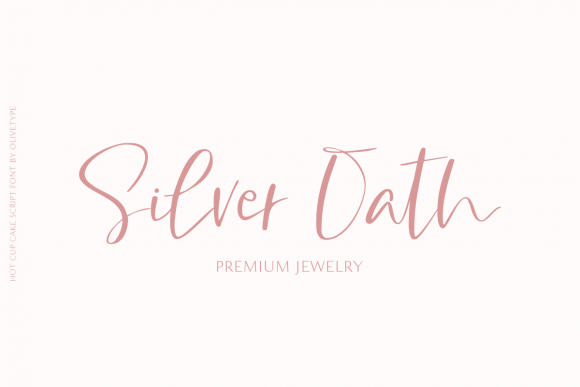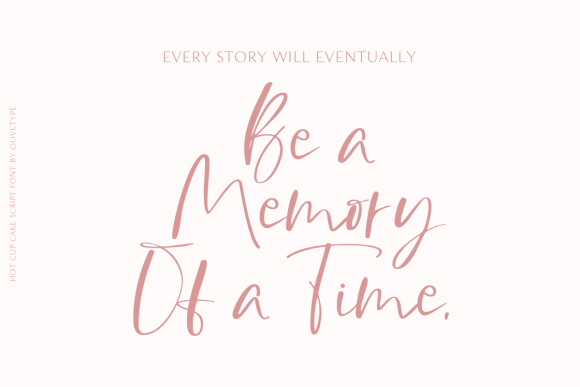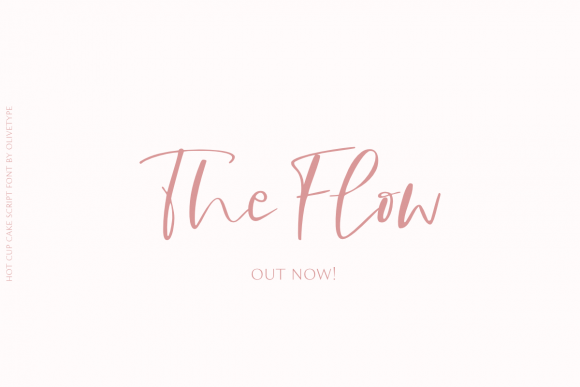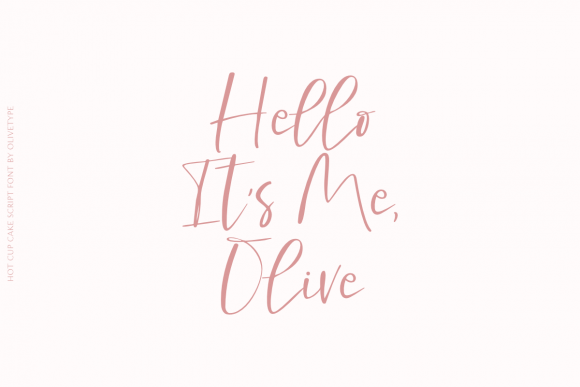
Introduction to Hot Cup Cake Font
Have you ever been working on a creative project, pouring your heart and soul into every detail, only to realize that the right font can make all the difference? That’s exactly what happened to me when I stumbled upon the beautiful Hot Cup Cake Font. As a designer, I’ve been searching for the perfect script font to add a touch of elegance to my designs, and I finally found it.
Hot Cup Cake Font is more than just a pretty face – it’s a high-quality design resource that offers a relaxed, fashionable, and delicate script style that’s perfect for a variety of creative projects. With its transparent background and free download option, it’s an absolute gem for designers looking to add a personal touch to their work.
Whether you’re designing wedding invitations, thank you cards, or logos, Hot Cup Cake Font is sure to impress. Its versatility and high-quality design make it a valuable asset for any designer looking to elevate their creative projects. In this article, we’ll dive deeper into the world of Hot Cup Cake Font and explore its many uses and benefits.
Key Features of Hot Cup Cake Font
- High-quality, unique design suitable for creative projects and designs
- Includes a range of font styles and sizes to cater to various design needs
- Perfect for baking and food-related designs, parties, and celebrations
Honest Review: Hot Cup Cake Font
As a designer, I’m always on the lookout for high-quality design resources to enhance my creative projects. Recently, I stumbled upon the Hot Cup Cake Font, and I must say it’s a delightful find.
What works well about this font is its playful and whimsical nature, making it perfect for baking-themed projects, kids’ designs, or even wedding invitations. The font comes with a transparent background, allowing for seamless integration with any design element. The free download option is also a big plus, making it an accessible design resource for designers of all levels.
- Playful and whimsical nature
While the Hot Cup Cake Font is a great addition to any designer’s toolkit, there are some limitations to consider. The font may not be suitable for formal or professional designs, as its playful nature may come across as unprofessional. Additionally, the font’s whimsical style may be difficult to pair with more serious design elements.
Overall, I’m impressed with the Hot Cup Cake Font, and I would recommend it to designers looking for a fun and creative design resource. Just be aware of its limitations, and use it accordingly.
Common Use Cases for Hot Cup Cake Font
The Hot Cup Cake Font is perfect for various design projects, including invitations, posters, and social media graphics. You can also use it to create custom logos or branding materials. With its free download option, you can start using this font in your creative project today.
Yes, the Hot Cup Cake Font has a transparent background, making it perfect for use on dark or busy backgrounds. The font’s design allows for easy layering and blending with other design elements.
Is the Hot Cup Cake Font a high-quality design resource?
Yes, the Hot Cup Cake Font is a high-quality design resource, carefully crafted to provide a unique and stylish look for your creative project. The font’s crisp lines and smooth curves make it perfect for use in a variety of design contexts, from logos and branding to digital and print materials.